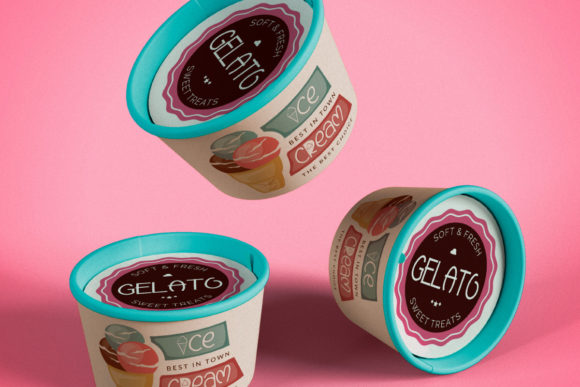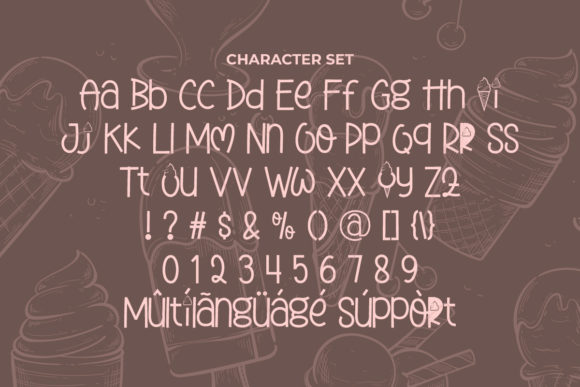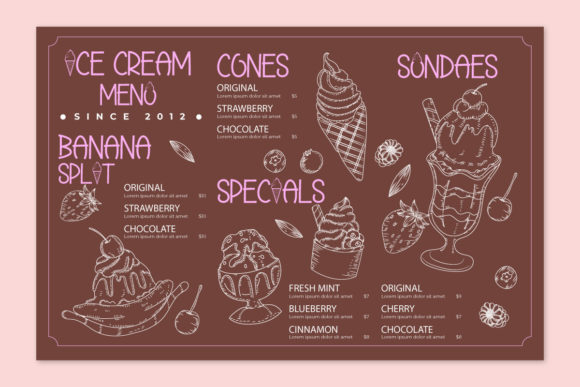
Introduction to Hello Ice Cream Font
As a designer, there’s nothing quite like the thrill of bringing a creative project to life. Whether you’re working on a logo, a social media campaign, or a branding strategy, the right font can make all the difference. And when you’re looking for a font that’s both fun and professional, Hello Ice Cream Font is definitely worth a closer look.
With its cute, friendly design and PUA encoded glyphs, Hello Ice Cream Font is the perfect addition to any high-quality design project. And the best part? It’s available for free download, making it an incredibly valuable resource for designers on a budget. Plus, with a transparent background, you can easily use it on any design surface, from social media graphics to website headers.
Key Features of Hello Ice Cream Font
- High-quality, hand-drawn design for a creative project or commercial use
- Includes 12 unique characters, including uppercase and lowercase letters, numbers, and punctuation
- Transparent background for easy use on any design or background
- Recommended font size: 24-48 points for optimal readability and visual appeal
Honest Review: Hello Ice Cream Font
I recently came across the Hello Ice Cream Font, and I was excited to dive into its features. As a designer, I’m always on the lookout for high-quality fonts that can elevate my creative projects. The Hello Ice Cream Font definitely delivers on this front.
One of the standout features of this font is its transparent background, which makes it incredibly versatile for use on various design resources. It’s perfect for creating eye-catching graphics, logos, and even social media posts.
Here are some of the things that work well with the Hello Ice Cream Font:
- Unique and playful design
- High-quality graphics
However, I did notice a few limitations with the font:
- Limited character set
- No bold or italic font weights
- May not be suitable for large-scale text
Overall, I’m impressed with the Hello Ice Cream Font. It’s a great addition to any designer’s toolkit, and its unique design makes it perfect for creative projects that require a touch of whimsy.
Tips for Getting the Most Out of Hello Ice Cream Font
For the best results, use the Hello Ice Cream Font in conjunction with other design elements, such as graphics and images, to create visually appealing designs. Experiment with different font sizes and styles to find the perfect combination for your project.
Common Use Cases for Hello Ice Cream Font
The Hello Ice Cream Font is ideal for creative projects that require a fun and playful touch, such as children’s party invitations, food blogs, or social media graphics.